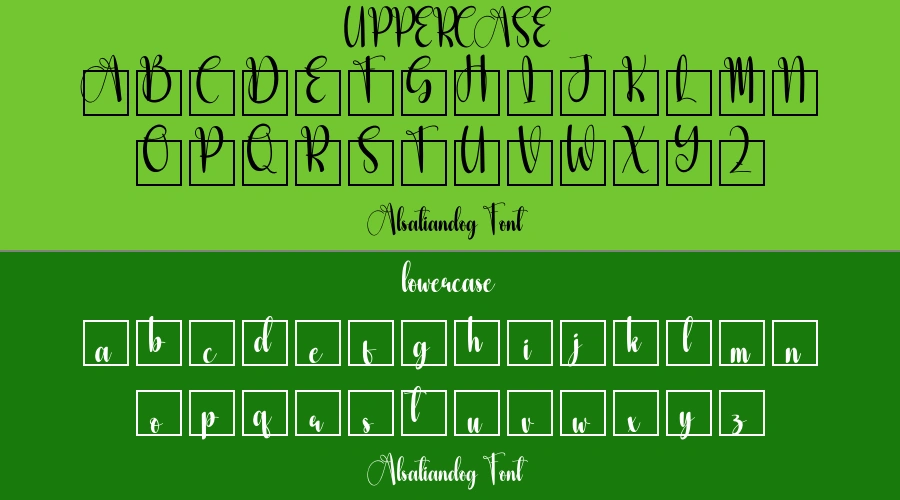
About Alsatiandog Font
Designed with precision, Alsatiandog Font merges elegant spacing with visual hierarchy in every character. This versatility makes it particularly effective for architectural plans, where distinctiveness and market appeal directly impact communication quality. Each letterform demonstrates meticulous craftsmanship.
Technical excellence shines through elements like refined proportions and stylistic sets, enhancing typographic versatility. In editorial spreads settings, Alsatiandog Font proves its worth through superior color consistency. The thoughtful execution of stem weight and character ensures professional results.